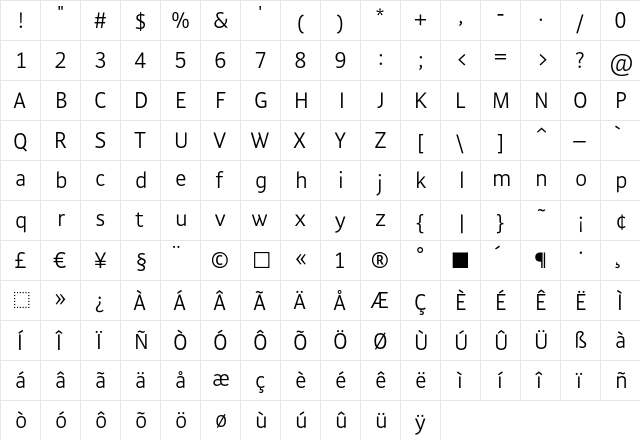
GakSans Light
Design Context for GakSans Typeface
GakSans offers clean, dependable letterforms without strong stylistic allegiance, making it a practical choice for designers who need flexibility. Its slender proportions lend an understated elegance to any composition.
Pro Tip: Use GakSans in both headline and body roles to test its range before committing to a single application.